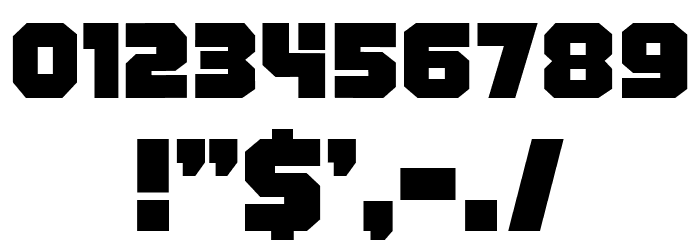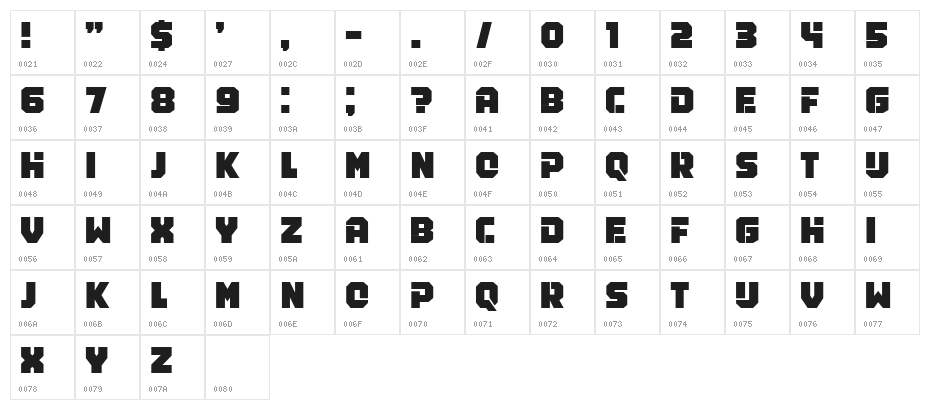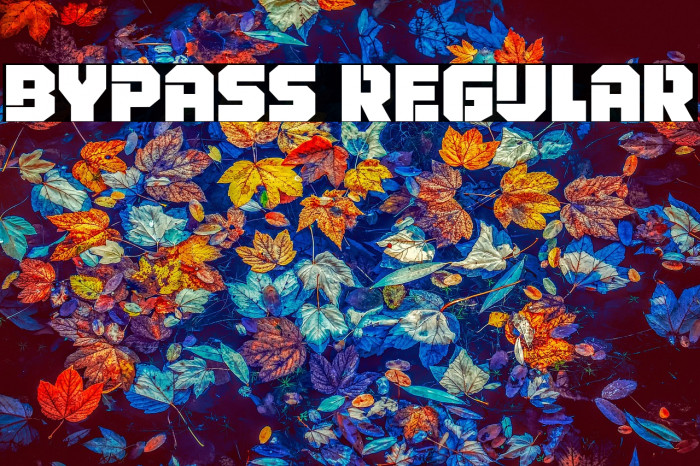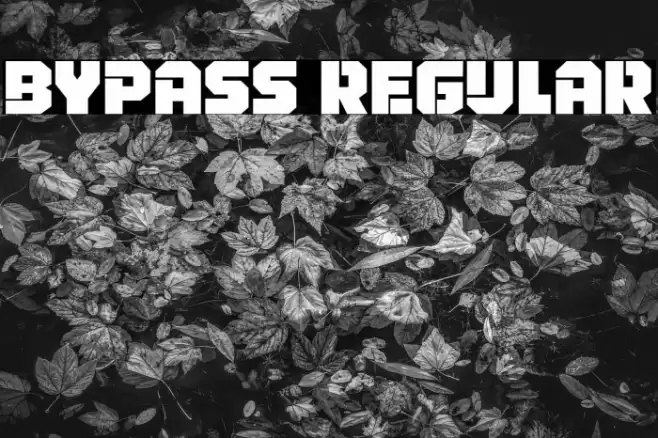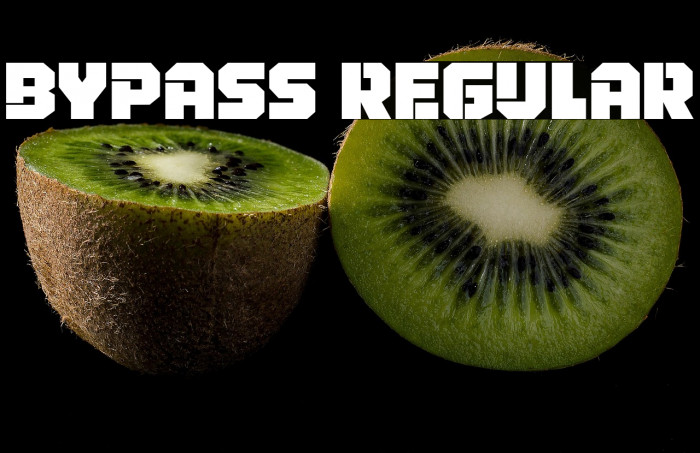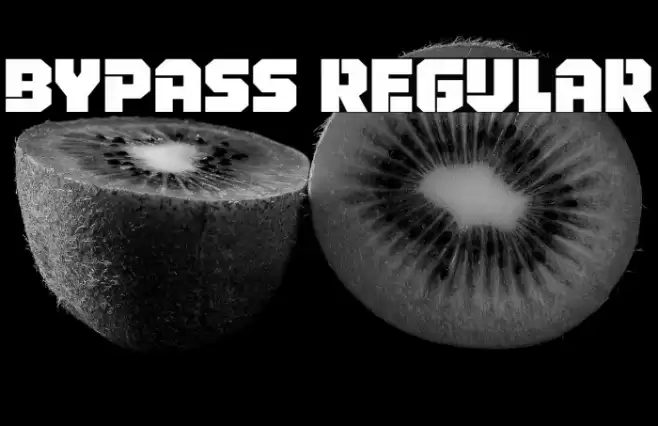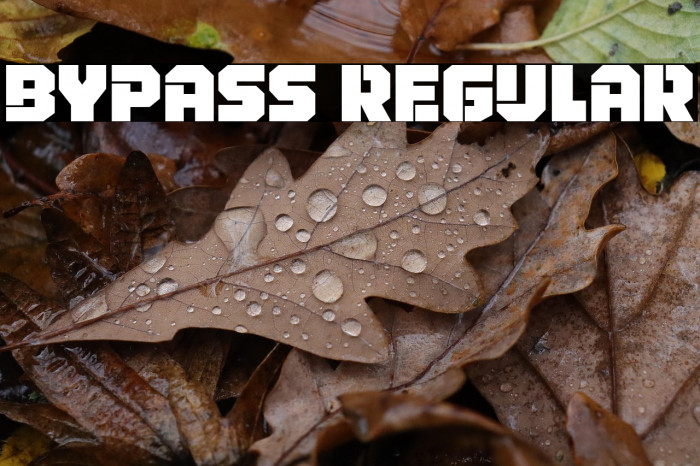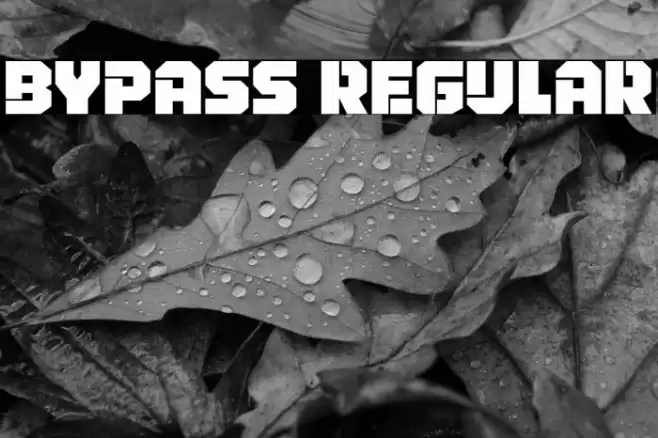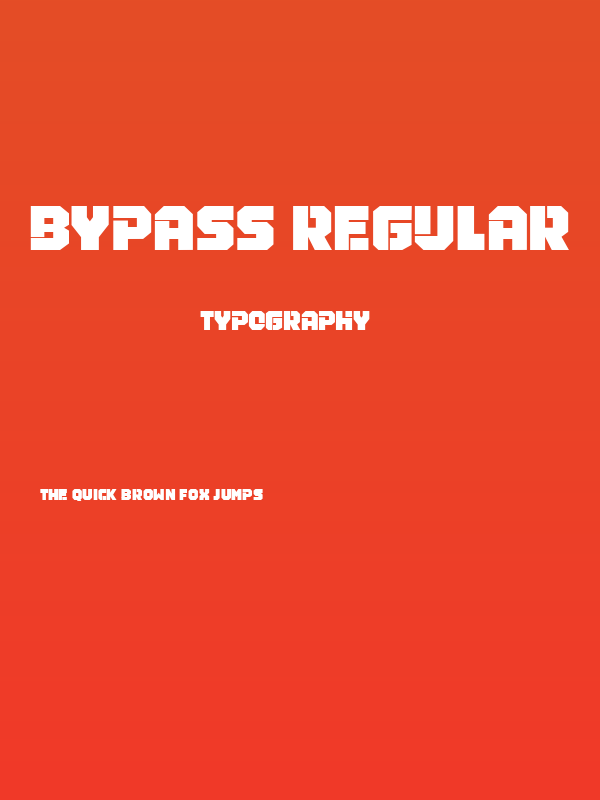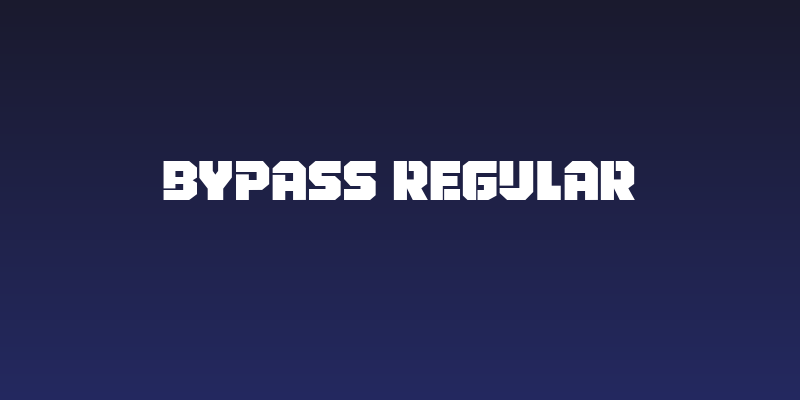
Bypass Regular Font
Bypass Regular Description
This font features a bold, geometric design with strong, angular lines and a modern, industrial feel. The characters are constructed with sharp edges and block-like forms, giving them a sturdy and impactful appearance. The uppercase and lowercase letters maintain a consistent style, emphasizing uniformity and strength. Numbers and special characters are designed to match the boldness of the alphabet, ensuring a cohesive look across all text. The font's design is particularly suited for projects that require a strong visual presence and a contemporary aesthetic.
| Proposed Projects | Ideal for branding, posters, headlines, and any design that requires a strong, impactful typeface. |